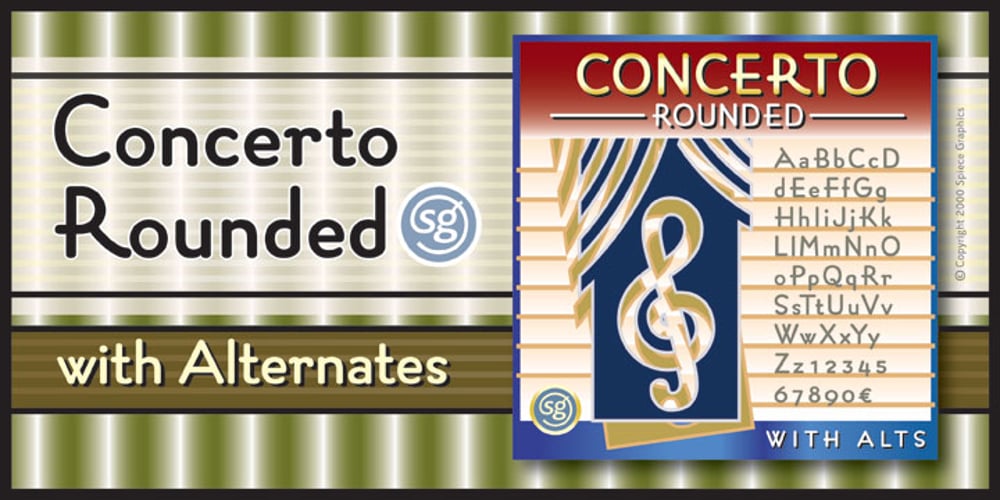
Concerto Rounded SG
Concerto Rounded SG font
Concerto Rounded SG Font Family was designed by Lucian Bernhard, Jim Spiece and published by Spiece Graphics. Concerto Rounded SG contains 2 styles and family package options. Concerto Rounded is based on a 1920s concert program lettered by Lucian Bernhard. In many respects Concerto is a toned-down version of the exceptionally light Bernhard Fashion. Concerto makes use of extensive crossbars and rounded terminals. It has two sets of lowercase letters, the alternate letters being slightly higher and wider than the ones in the first set. Cap alternates are consistent in approach with the work of this talented poster artist. His characteristically flamboyant display style is now available where legibility and readability are big issues. Concerto is equipped with lining and non-lining figures. Concerto Rounded and Concerto Rounded Alts are also available in the OpenType Std format. Some new characters have been added to these OpenType versions. Advanced features currently work in Adobe Creative Suite InDesign, Creative Suite Illustrator, and Quark XPress 7. Check for OpenType advanced feature support in other applications as it gradually becomes available with upgrades.